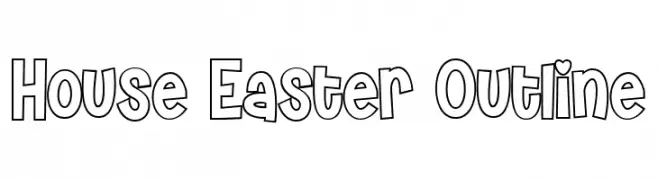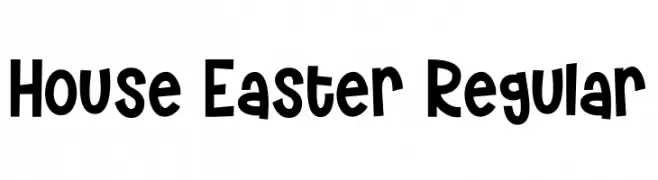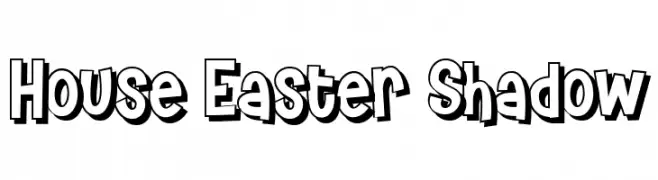
A bold, brush-stroke font with an expressive and artistic style.
Playful handwritten font with tall, narrow characters.
Tall, whimsical sans-serif with playful rounded forms.